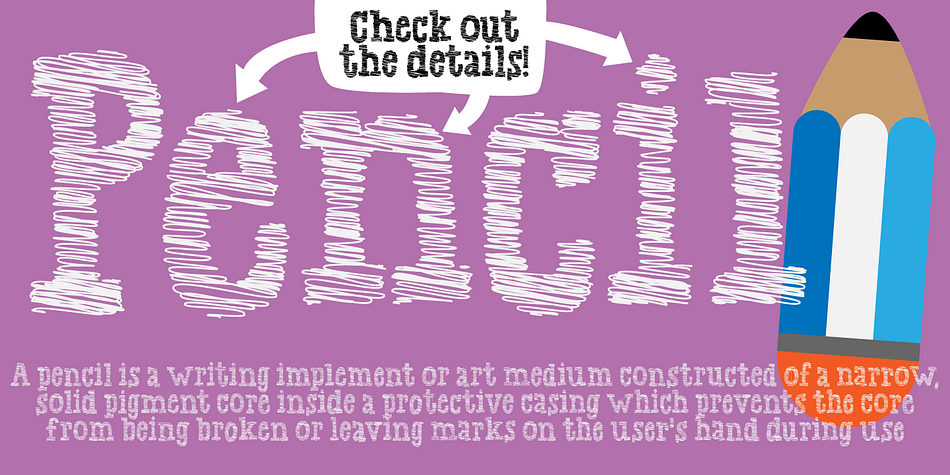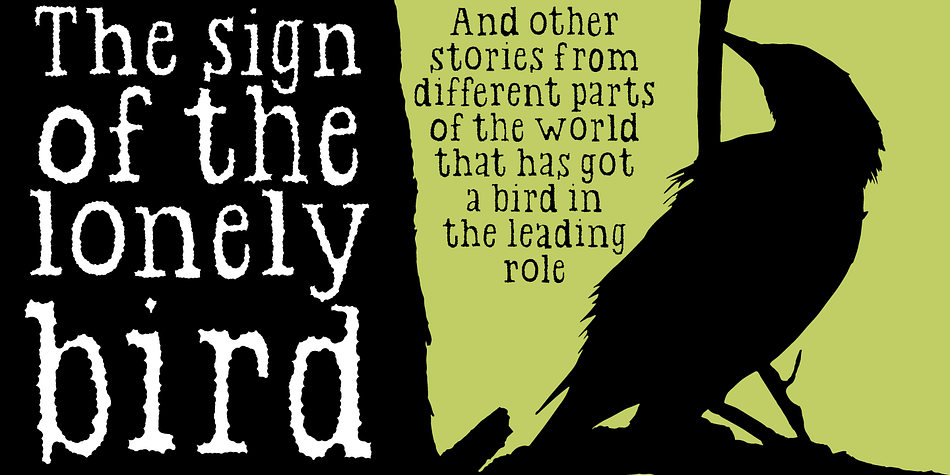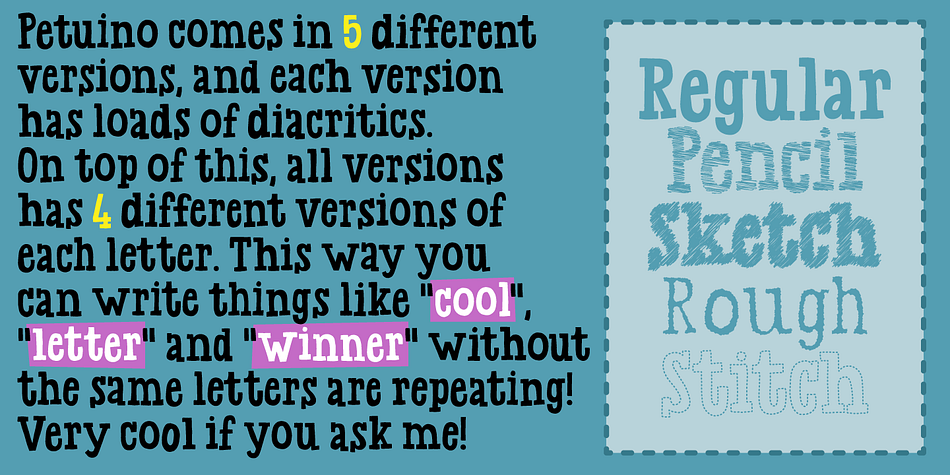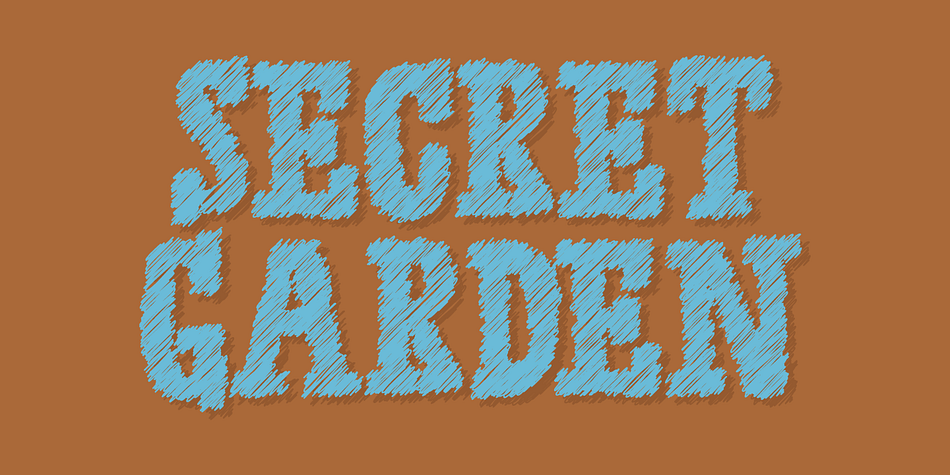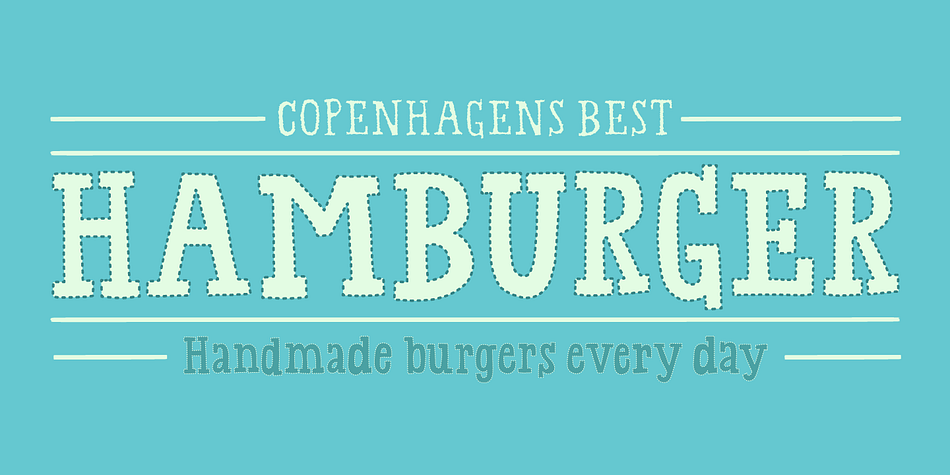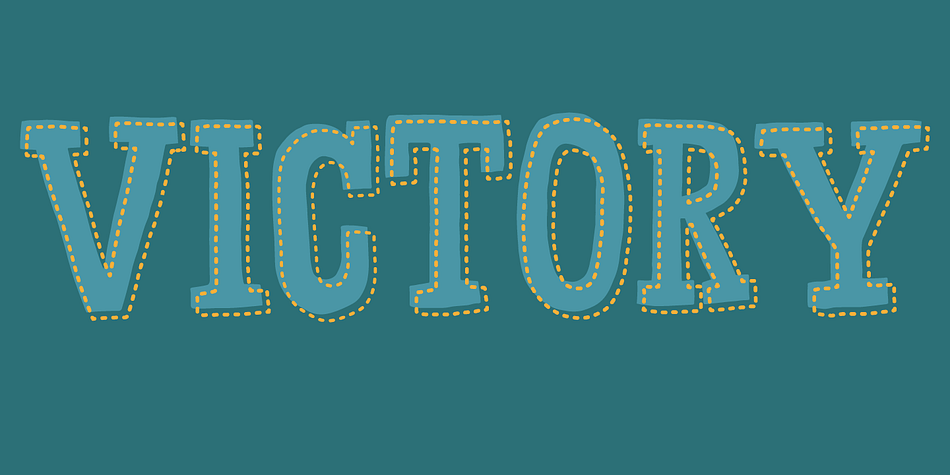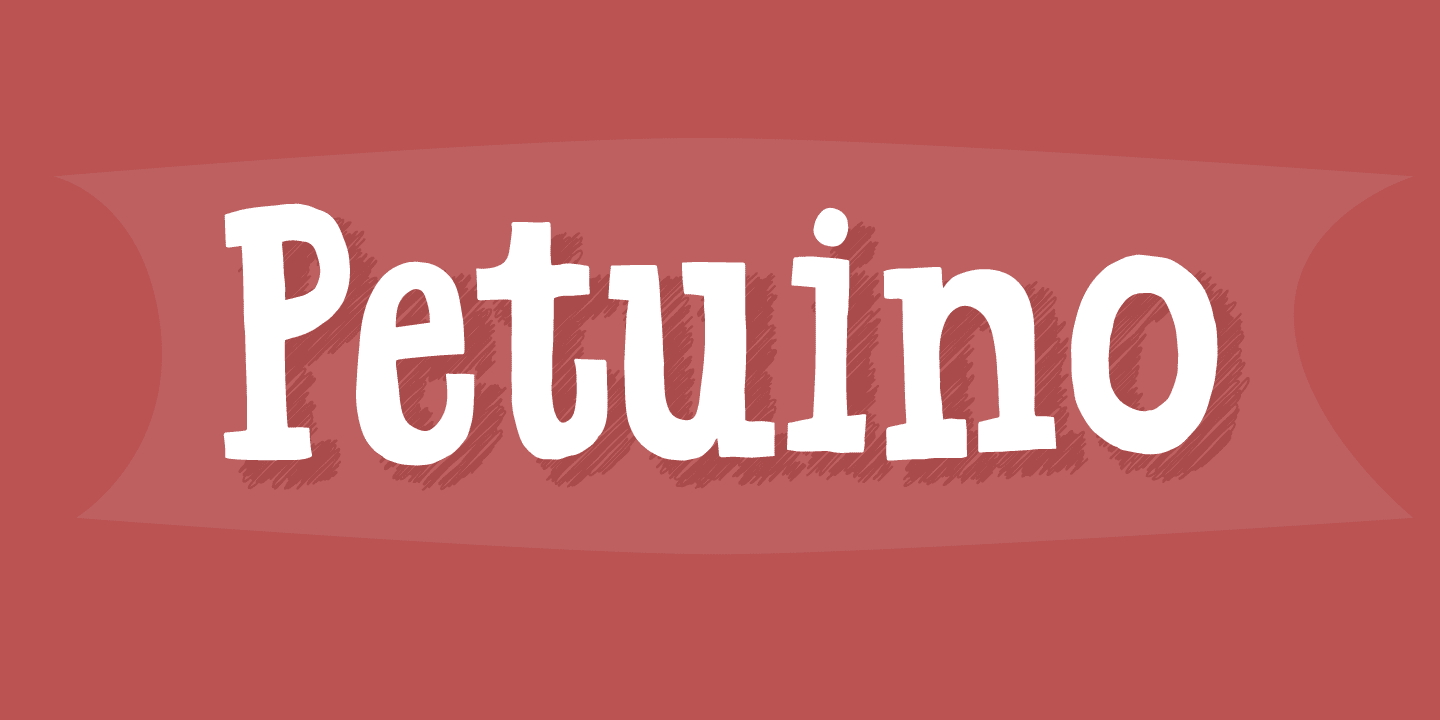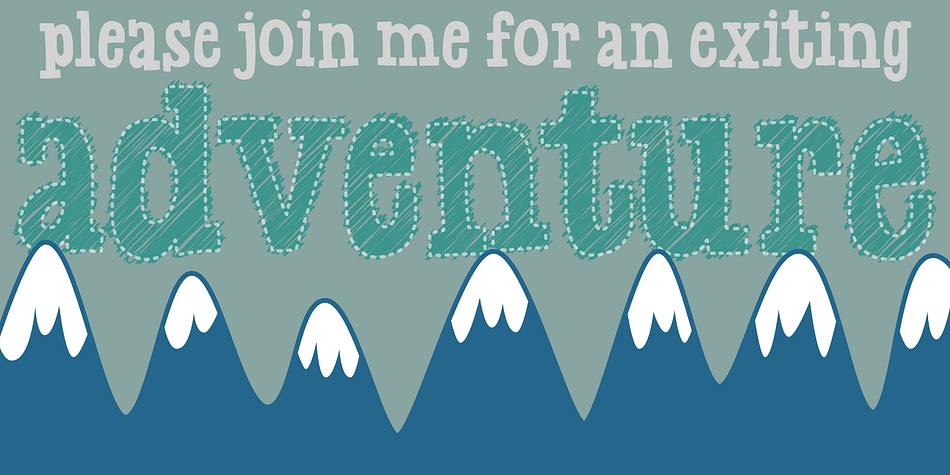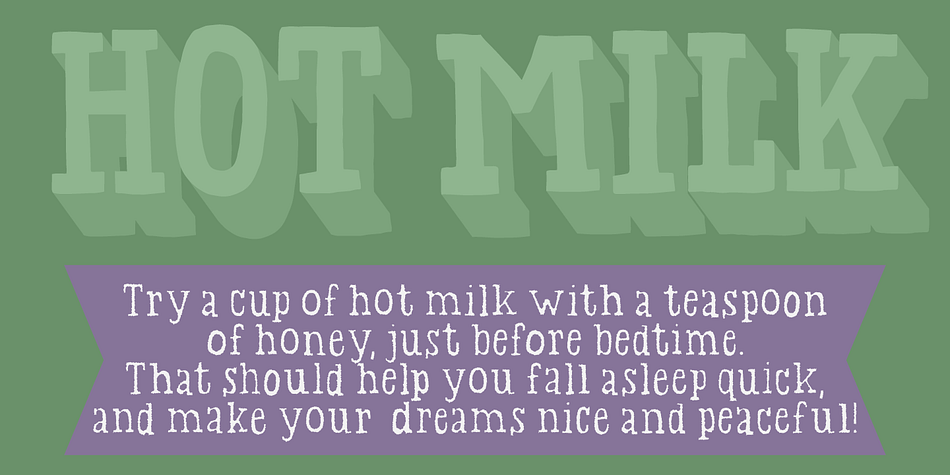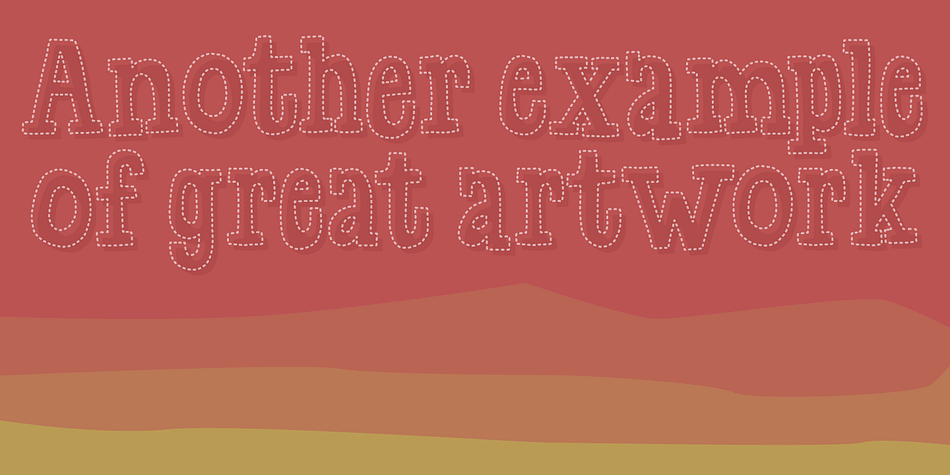
Designed by Jakob Fischer, Petuino is a display slab, hand display and hand drawn font family. This typeface has four styles and was published by Pizzadude.dk.
The name “Petuino” came to me one day, when playing WordFeud, and I knew that one day I would name a font that. I just had to wait until the day, when I made a font that suited the name perfect. I hadn’t drawn many letters of the font, before I knew that this was my Petuino ... which is a name that doesn’t make much sense, but sounds nice when you pronounce it!
Loads of international characters and a woozing 4 different letters (and that goes for all 5 different versions!!!) that automatically cycles as you type!